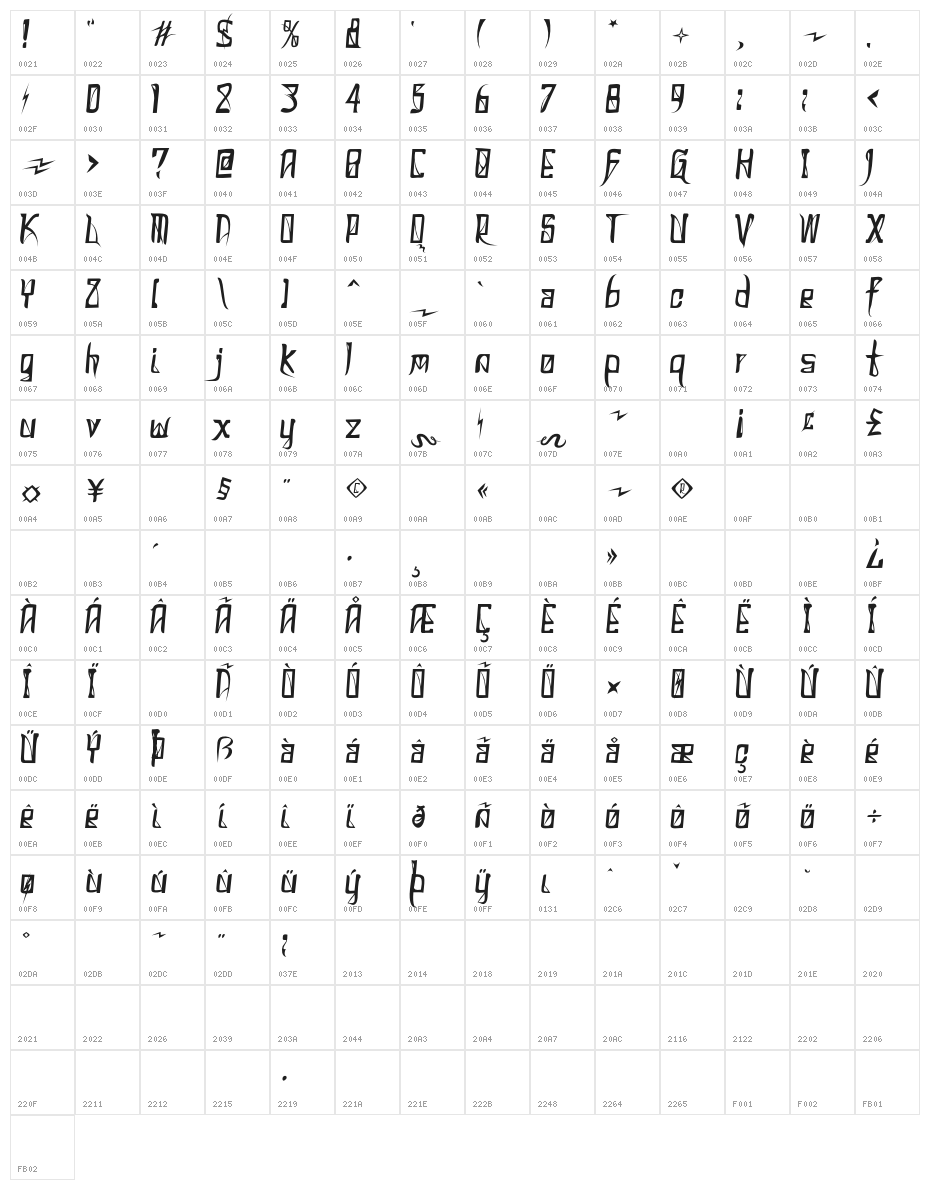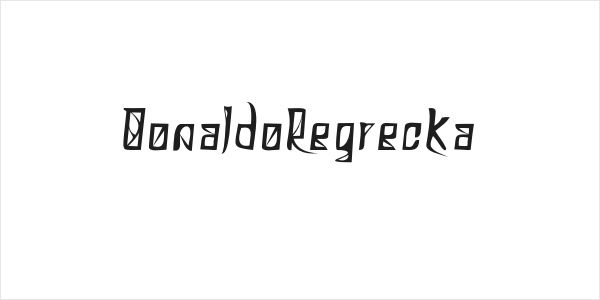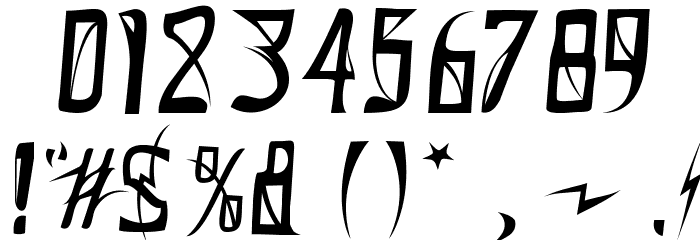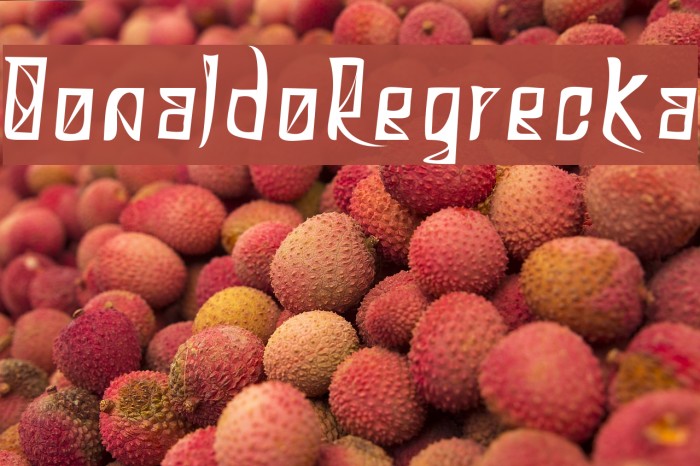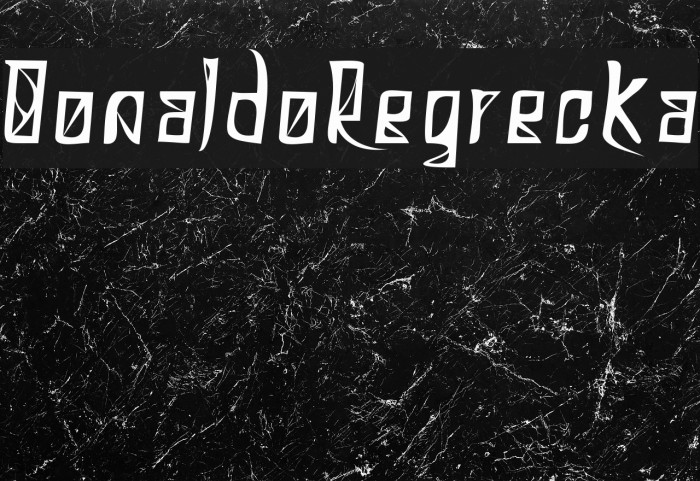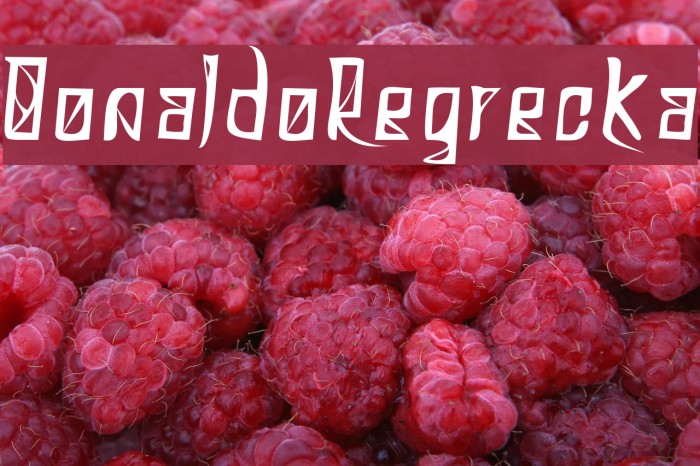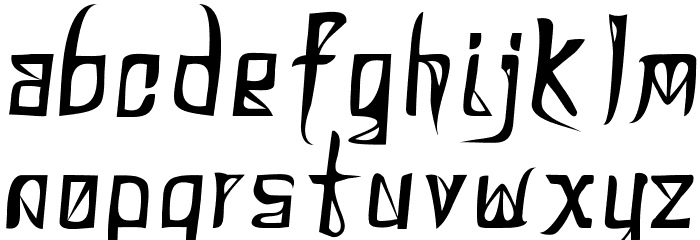
DonaldoRegrecka Font
DonaldoRegrecka Description
This font features a highly stylized and angular design, with sharp edges and dramatic curves that create a sense of movement and energy. The uppercase letters are particularly striking, with exaggerated serifs and unique forms that give each character a distinct personality. The lowercase letters maintain this dynamic style, though they are slightly more subdued, allowing for better readability. Numbers and special characters follow the same aesthetic, ensuring consistency throughout. The overall design is bold and eye-catching, making it suitable for projects that require a strong visual impact.